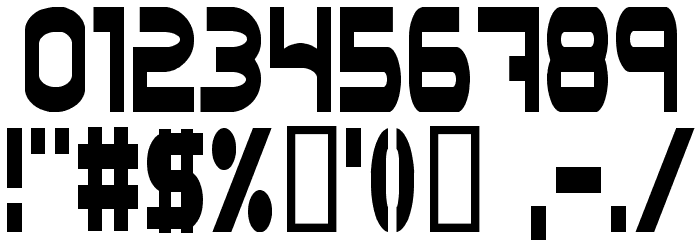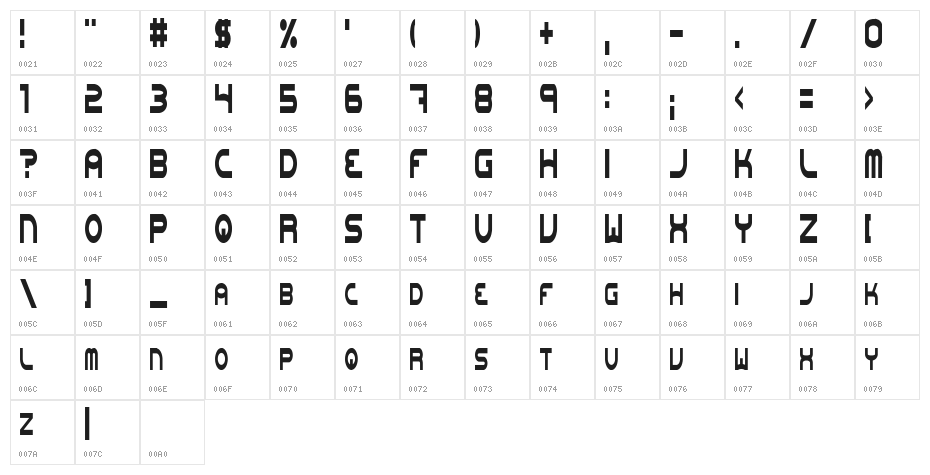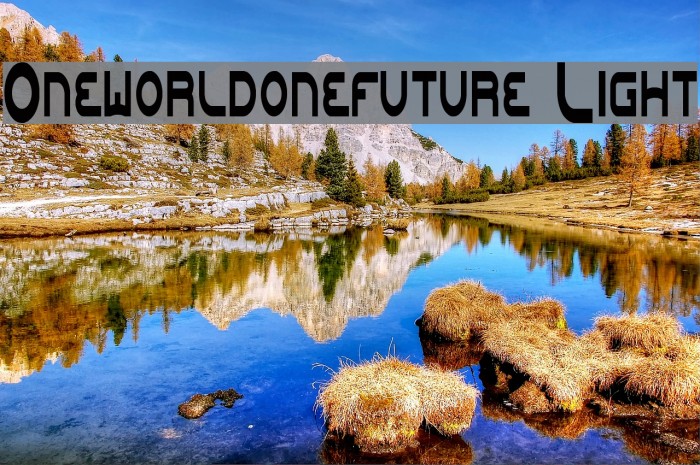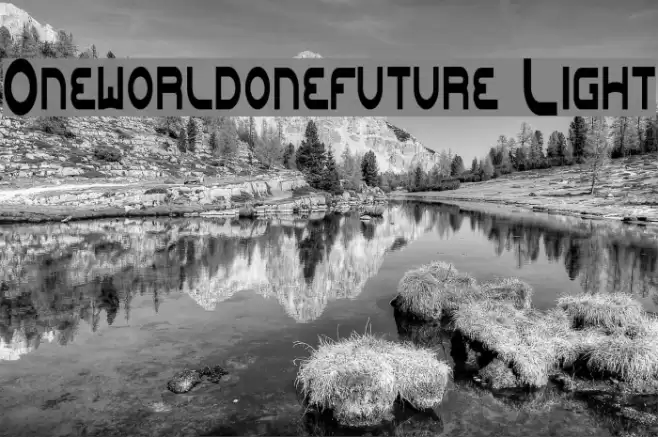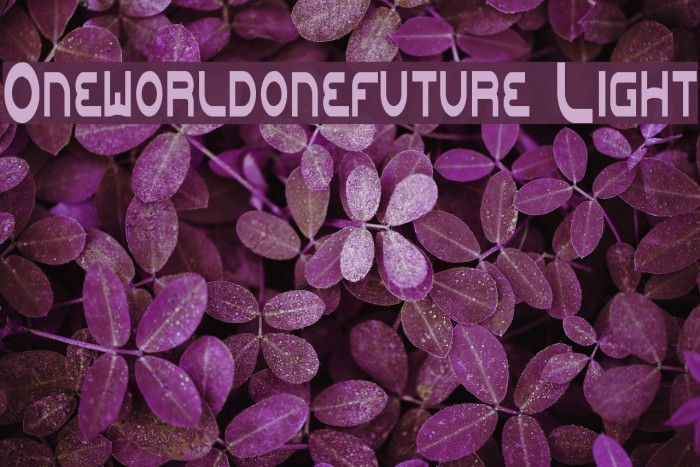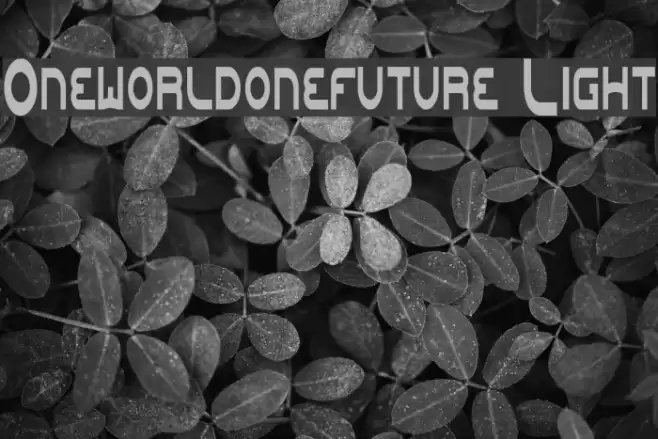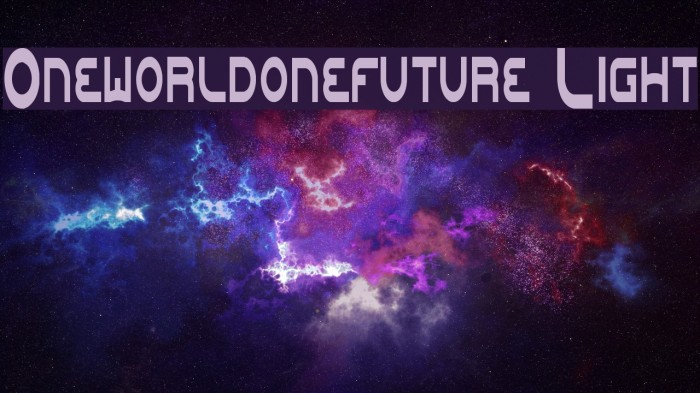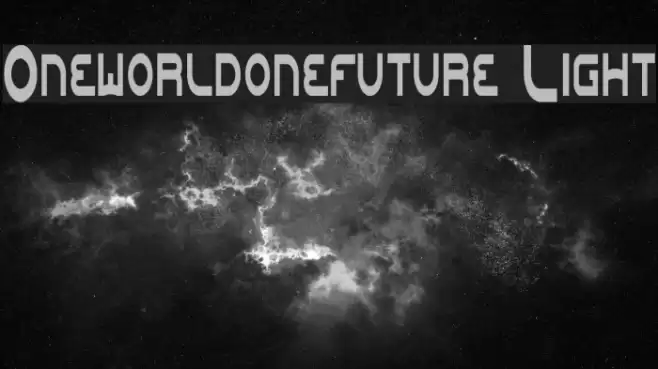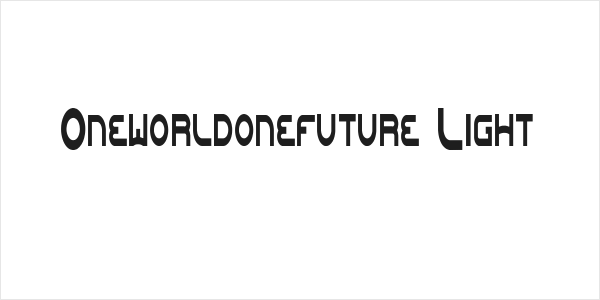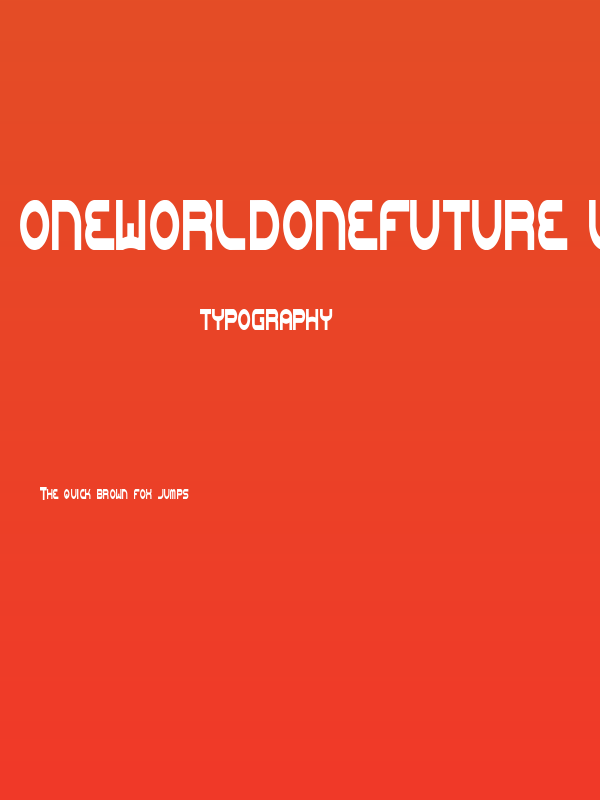
Oneworldonefuture Light Font
Oneworldonefuture Light Description
This font features a bold, geometric design with a futuristic aesthetic. The characters are constructed with clean, straight lines and sharp angles, giving it a modern and tech-inspired look. The uppercase and lowercase letters maintain a consistent style, with some characters incorporating unique cutouts and shapes that add to its distinctive appearance. The numbers are equally bold and follow the same geometric pattern, ensuring uniformity across all characters. Special characters are designed with the same attention to detail, making this font versatile for various applications.
| Use Case | Headlines, Logos, Digital Interfaces |
| Proposed Projects | Ideal for technology branding, sci-fi themed projects, digital interfaces, and modern advertising campaigns. |